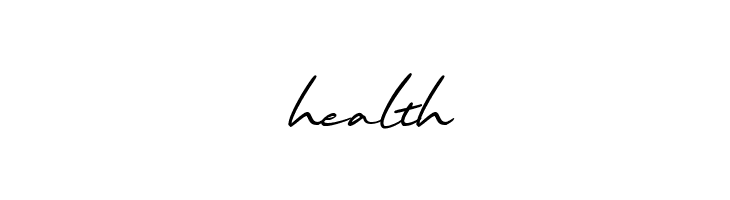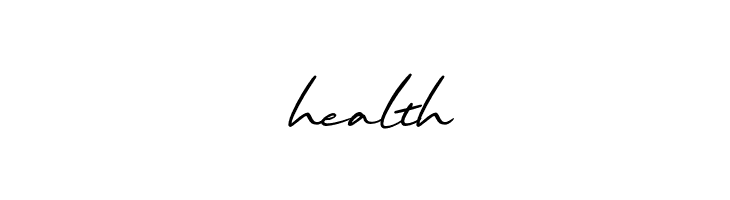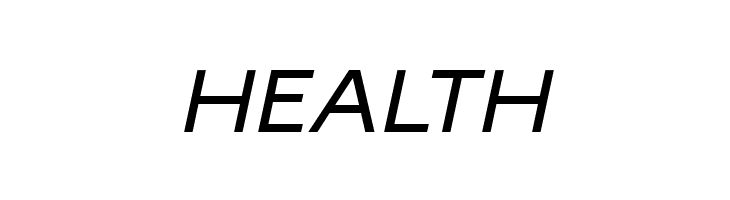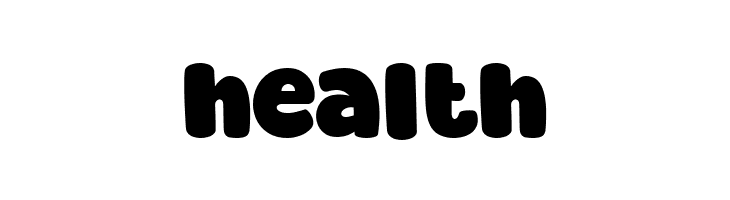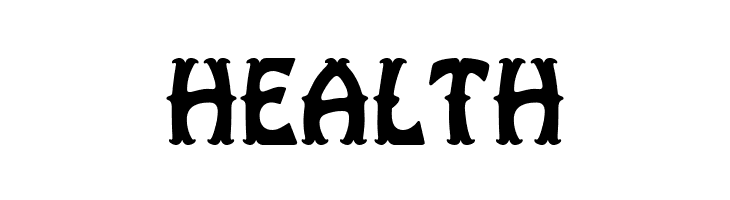
Malibu Font
A bold, decorative font with a playful, vintage flair.
Malibu Babylon Font
A bold, dynamic script font with elegant, flowing cursive letters.
Malibu Font
An elegant script font with flowing, ornate cursive letters and intricate flourishes.
Super Malibu Font
A playful, bold font with rounded, bubble-like characters.
Malibu Sunset Sans Free Font
A modern, clean sans-serif font with uniform stroke width and high legibility.
Malibu Nights Regular Font
Casual handwritten font with rounded edges.
MalibuSunset-Sans Free Font
A modern, clean sans-serif font with a geometric structure and excellent readability.
Malibu Sunset Free Script Font
A modern, handwritten script font with elegant, flowing letters.
Malibu Sunset Free Script Ita Font
A flowing, cursive script font with a casual elegance and interconnected letters.
Malibu Sunset Free Sans Italic Font
A modern sans-serif italic font with a sleek and dynamic appearance.
MalibuSunsetFree-Script Font
A modern, elegant cursive script with a flowing, handwritten style.
MalibuSunsetFree-ScriptItalic Font
A fluid and elegant handwritten script with a casual yet sophisticated style.
MalibuSunsetFree-SansItalic Font
A modern sans-serif italic font with consistent stroke thickness and a dynamic slant.